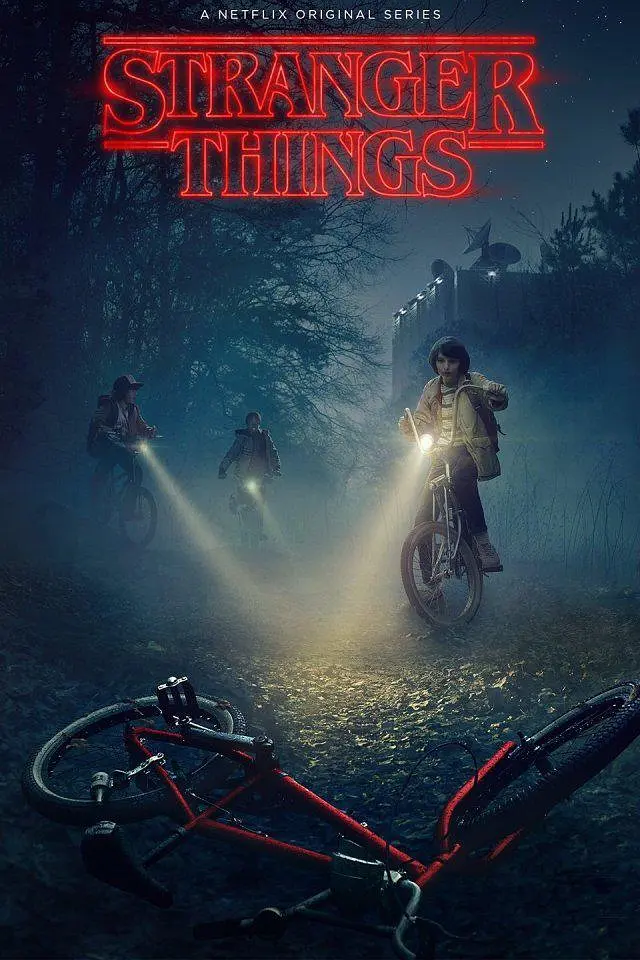
About Stranger Things Font
Official Stranger Things poster showcasing the distinctive 80s neon typography that inspired our font generator
Stranger Things is a Netflix original sci-fi horror series that has captivated audiences worldwide with its nostalgic 80s aesthetic and supernatural storyline. Set in the fictional town of Hawkins, Indiana, the show masterfully recreates the visual style of the 1980s, particularly through its iconic typography and neon-lit title sequences. The distinctive Stranger Things font features bold, retro letterforms with glowing neon effects that perfectly capture the show's blend of nostalgia and supernatural mystery. Our Stranger Things font generator allows you to recreate these authentic 80s-style text effects, complete with the signature neon glow, retro color schemes, and sci-fi atmosphere that made the series visually iconic. Whether you're creating fan art, social media content, or design projects inspired by the Upside Down, our tool helps you achieve that perfect Stranger Things aesthetic.
Stranger Things
Family: Stranger Things
80s-inspired display with angular shapes and dramatic glow-friendly outlines.